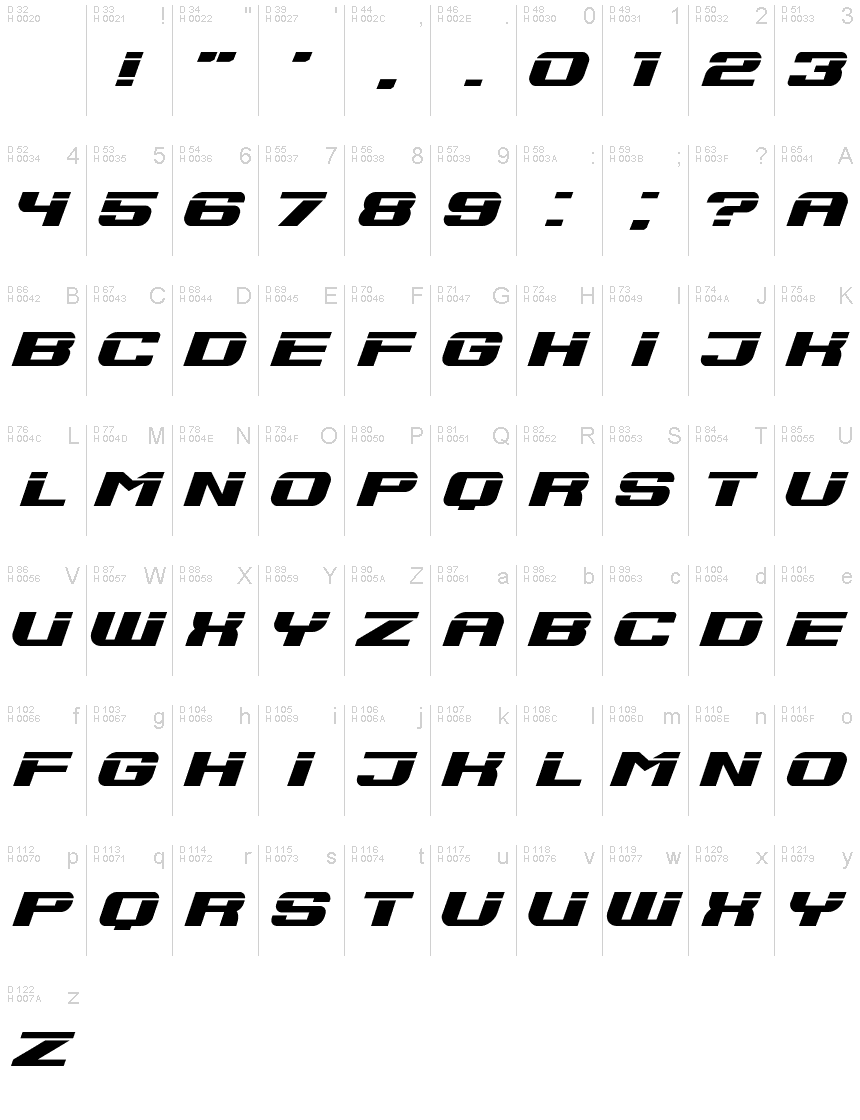
Pengenalan Regular
Introducing Pengenalan, an expanded futuristic display font designed by Vladimir Nikolic. Perfect for creating eye-catching headlines, titles for sci-fi projects, and posters with a modern aesthetic.